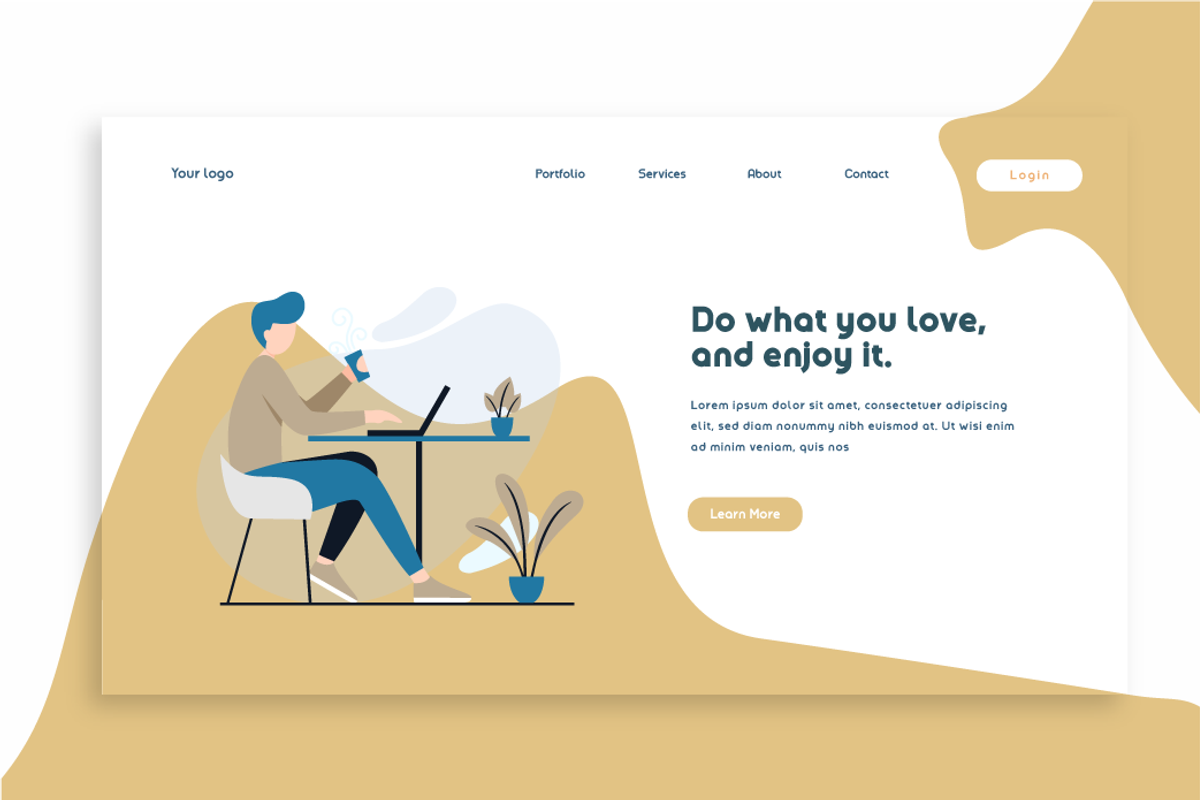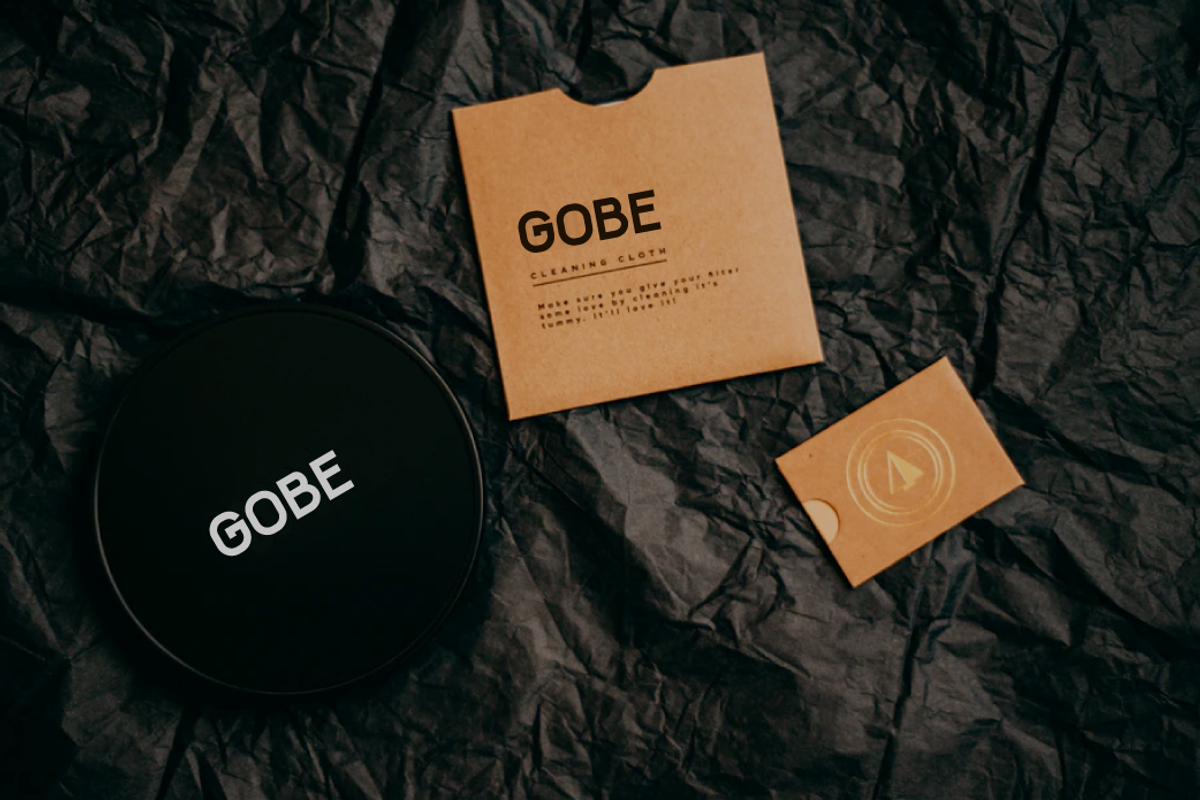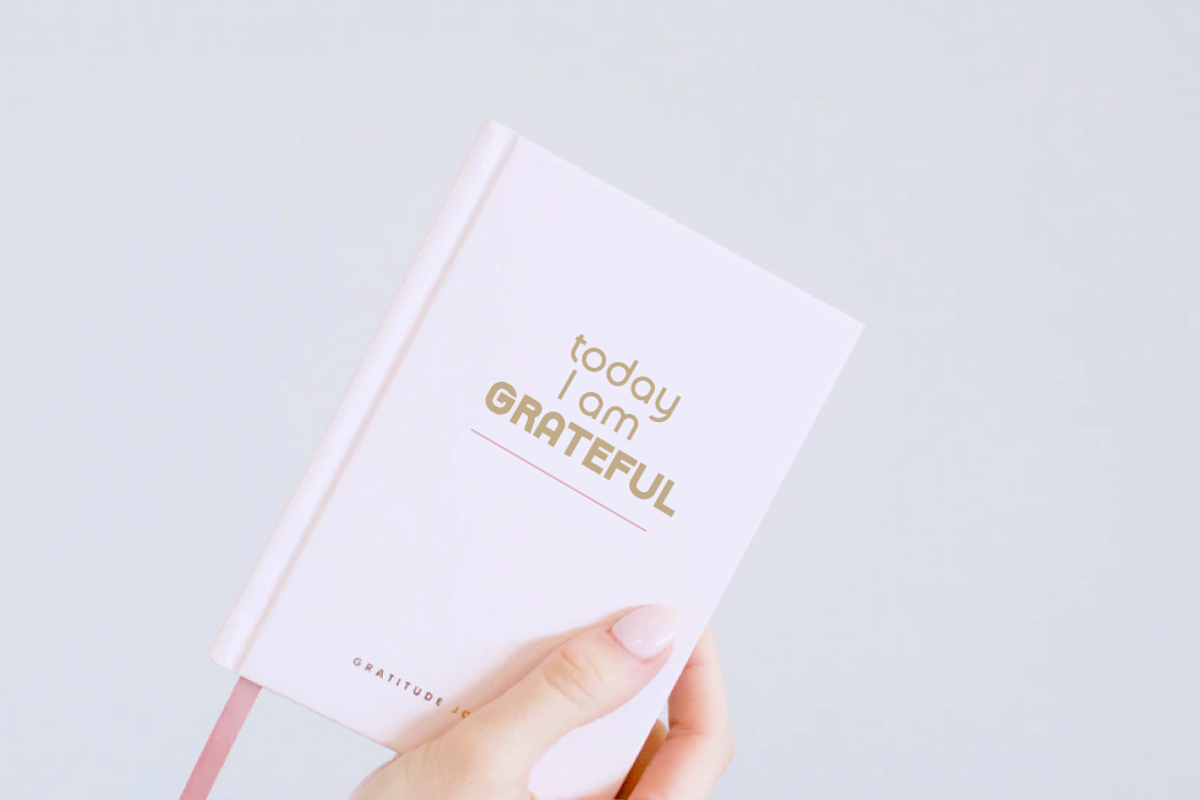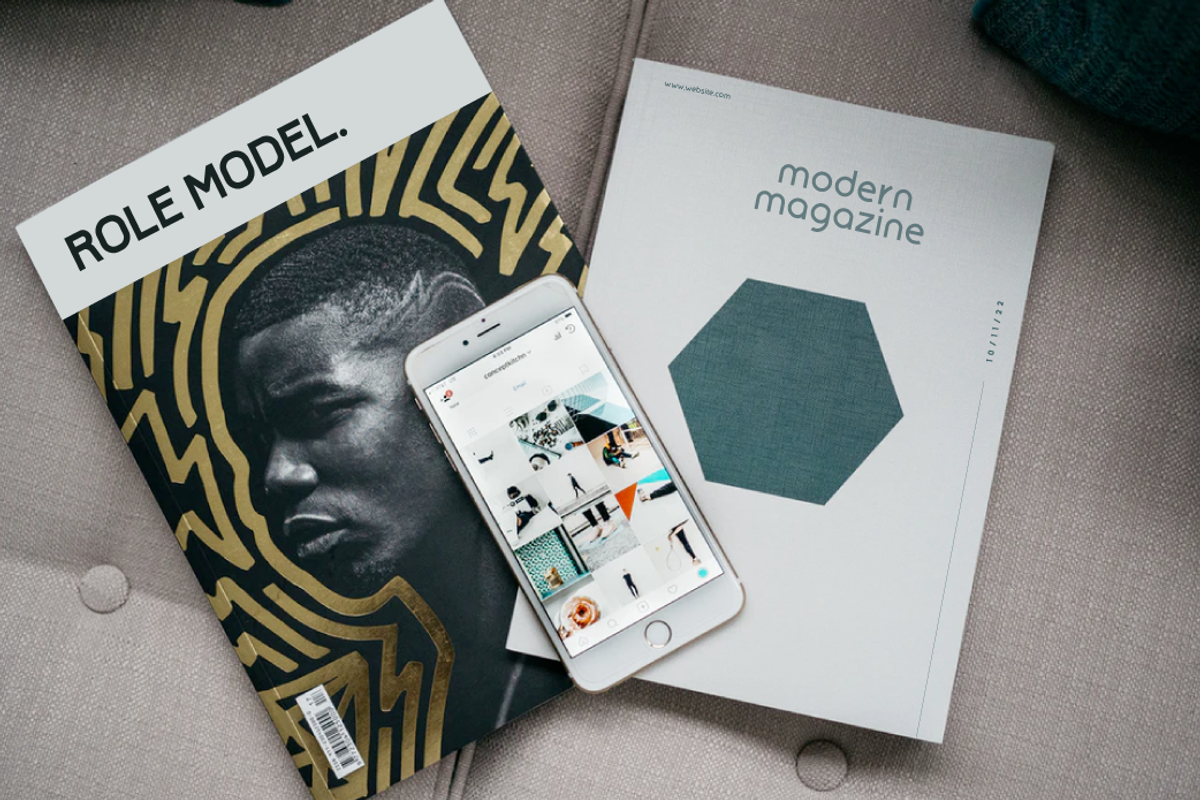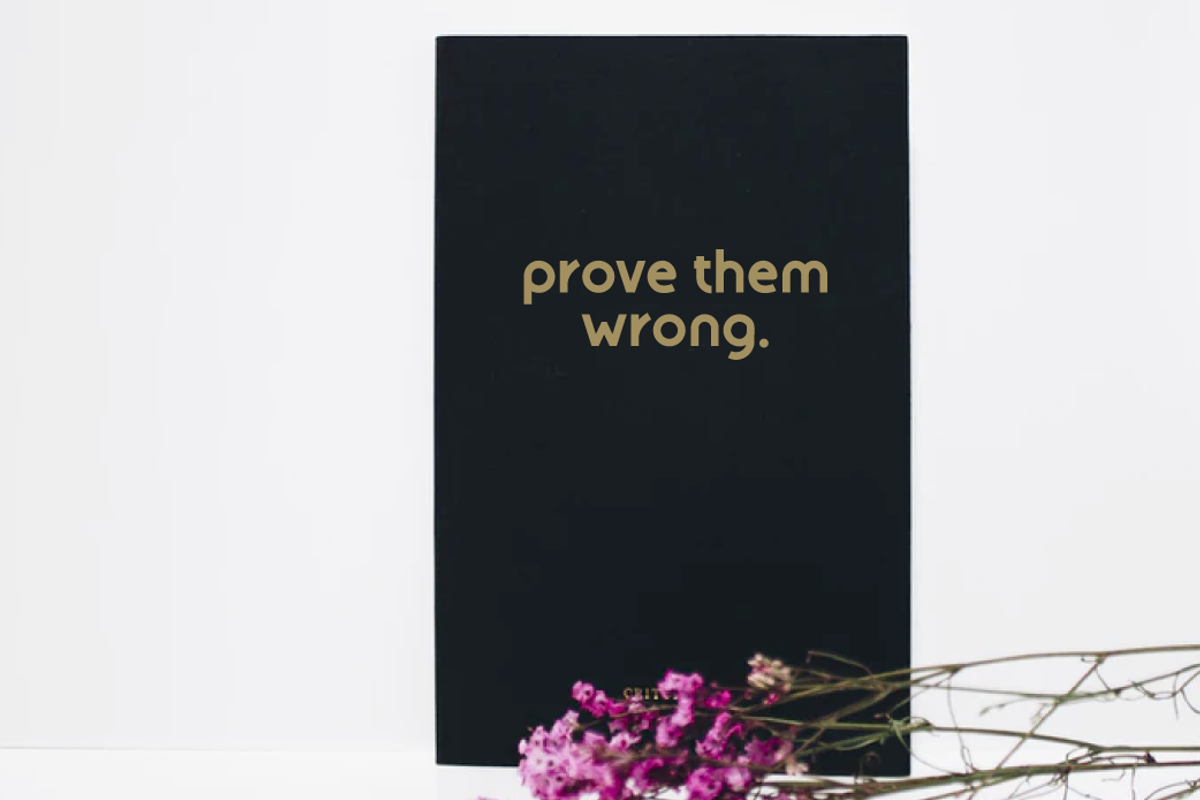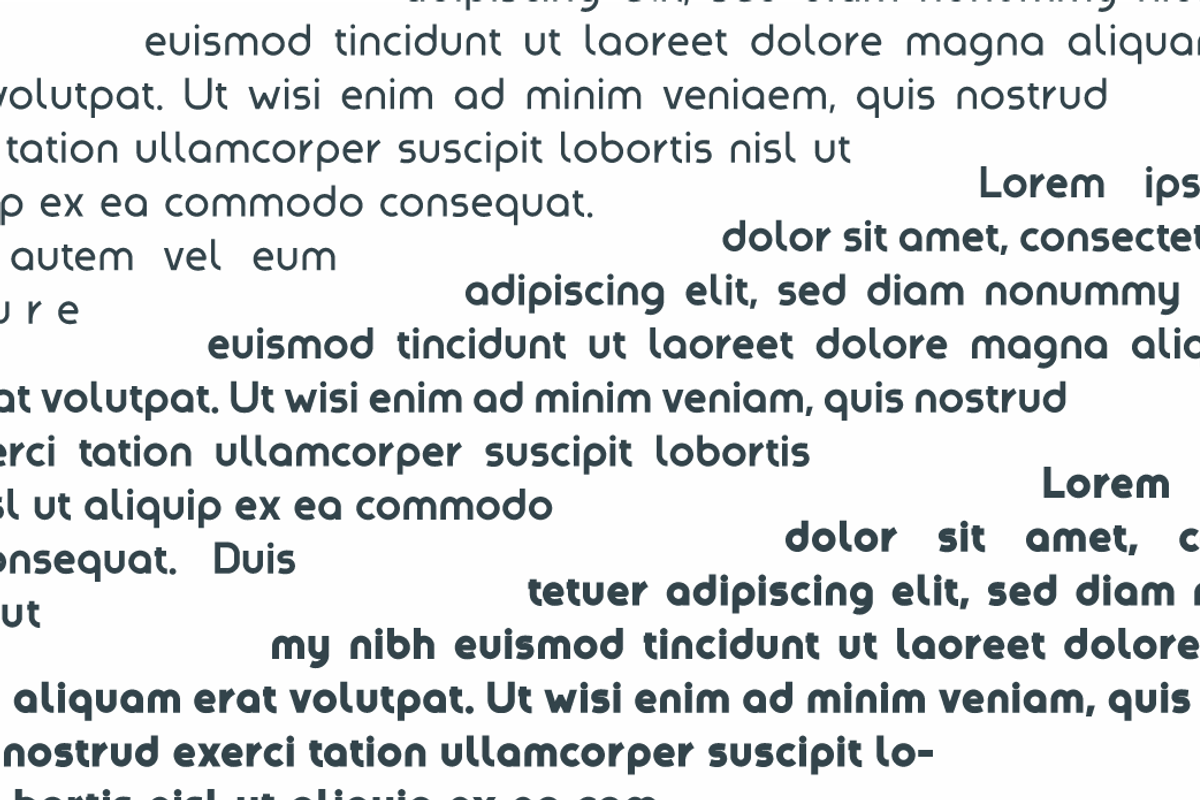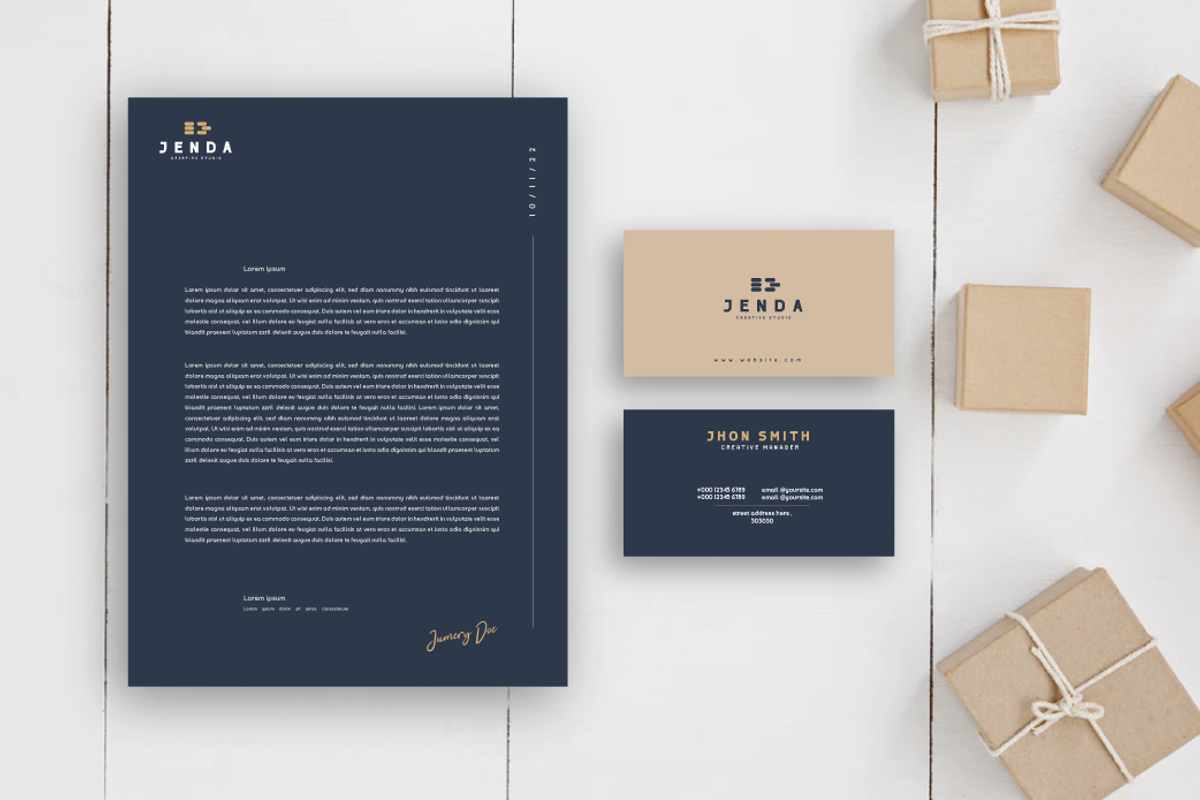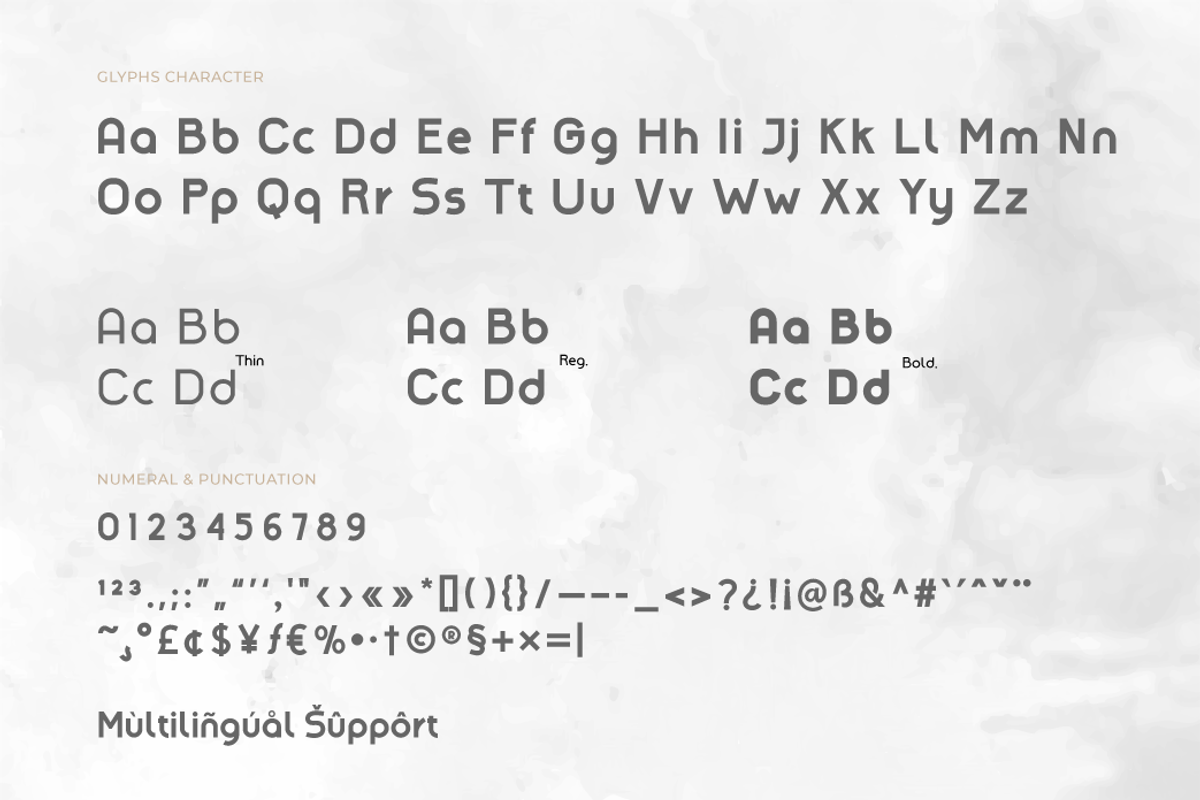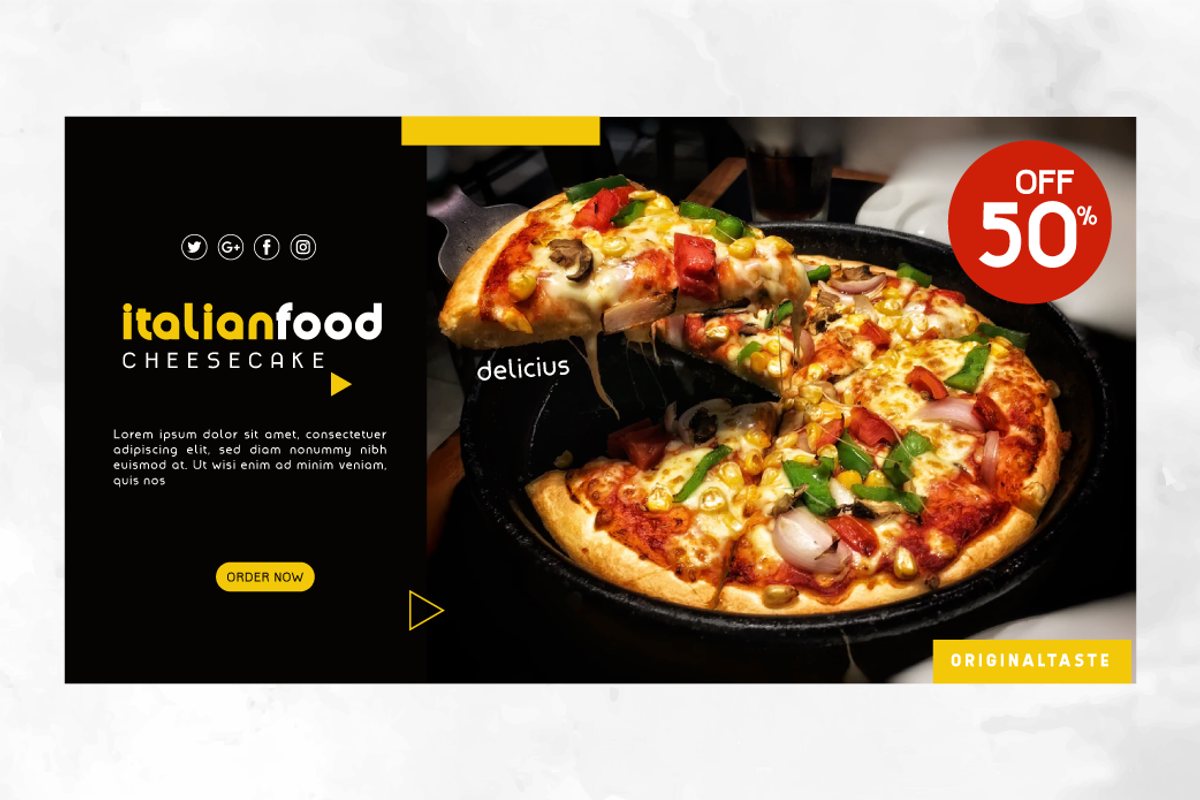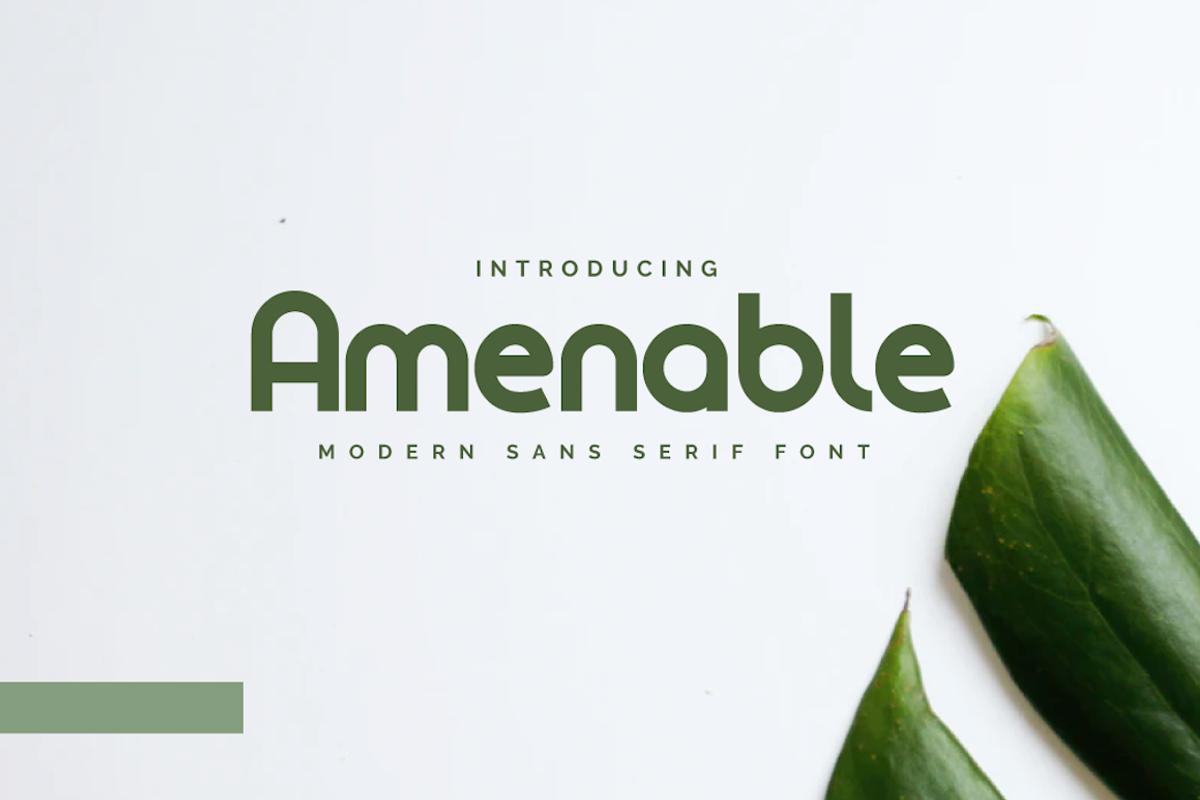
Amenable
Introducing Amenable. Our latest fonts that save beauty in every word order you write with this font. made by paying attention to detailed geometric and paying attention to the perspective of the eye when reading the text using this font, so we made this font design to appear harmonious and comfortable to read. use this font to create a perfect design.
This font is very suitable as text with displays for various kinds of branding, advertisements, posters, banners, packaging, news headlines, magazines, websites, logo design, banners, social media design and of course you can use a lot more.